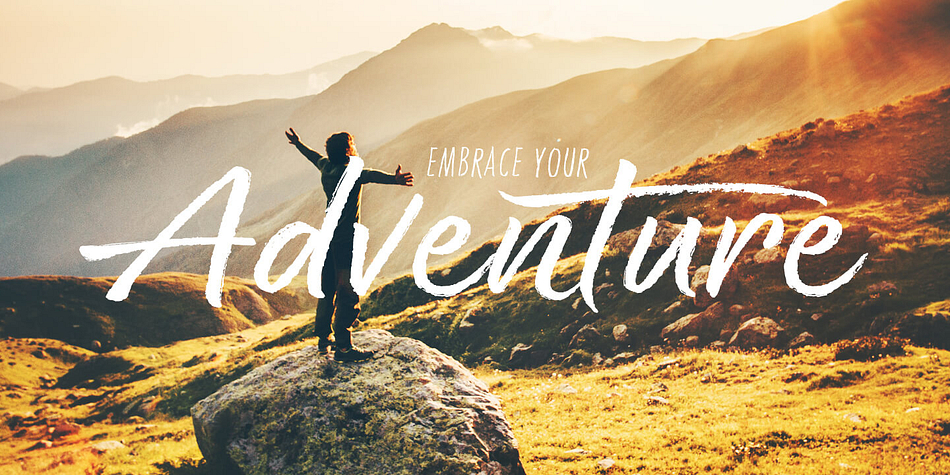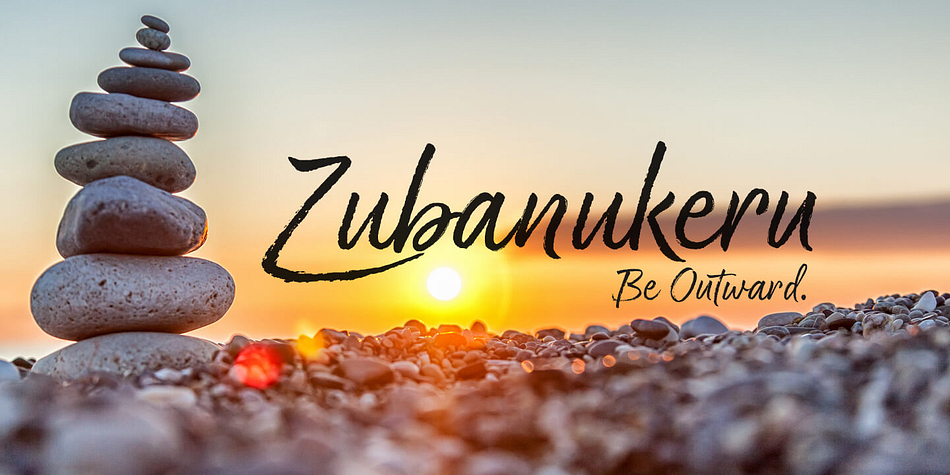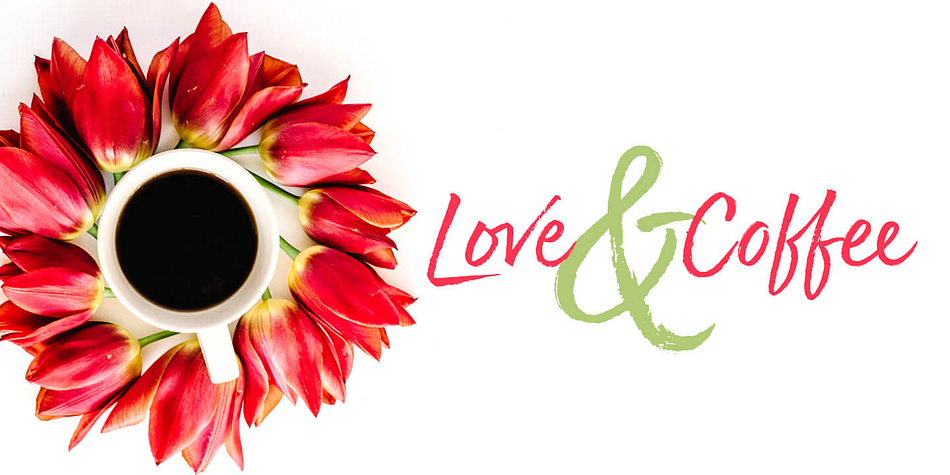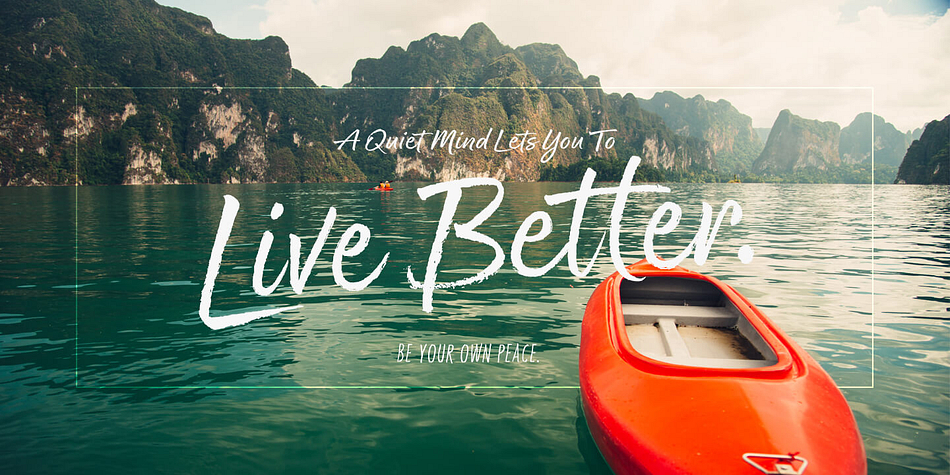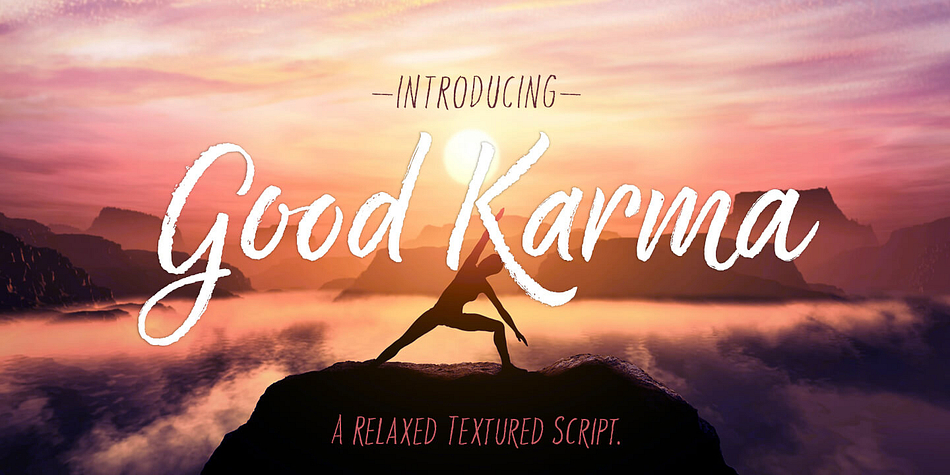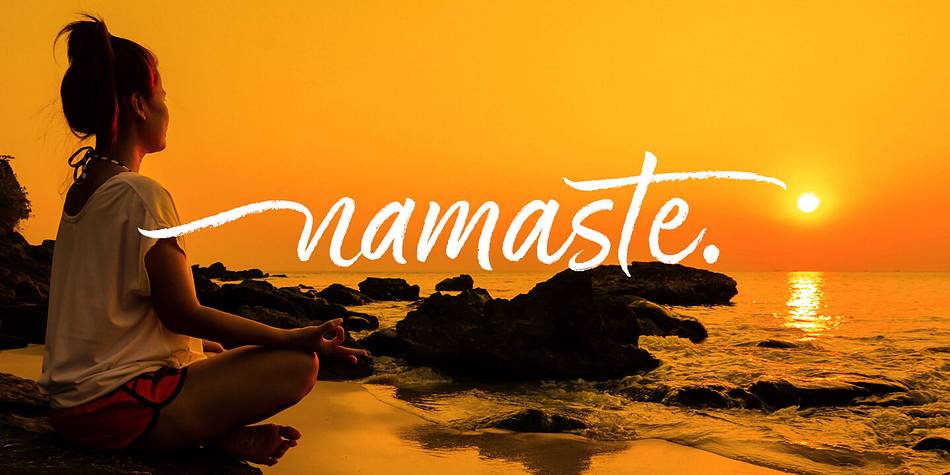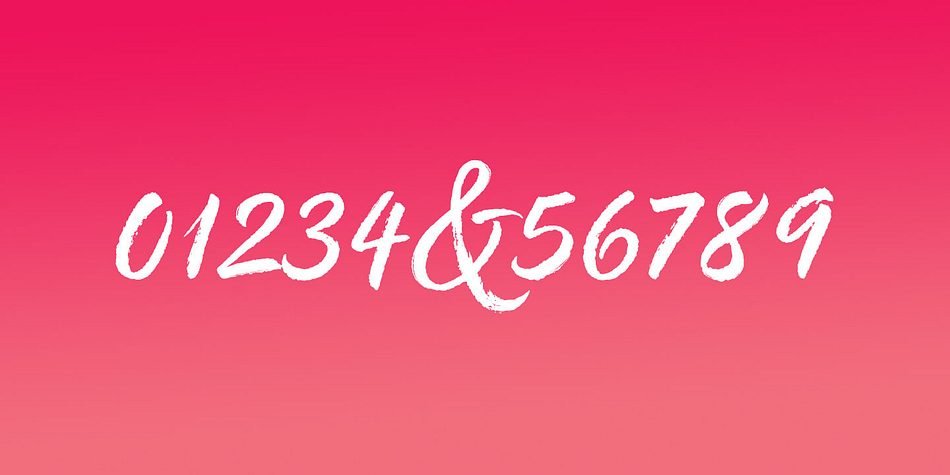
Designed by Neil Summerour, Good Karma is a multiple classification font family. This typeface has five styles and was published by Positype.
Good Karma (its namesake) will be extended to you as you use this new relaxed script family. Produced from hand and sumi brush of Neil Summerour, Good Karma is a natural brush textured font family. Good Karma is filled with a lot of heart, reliable and genuine movements, and a wide range of letter options to befit any project needing an honest hand-lettered look.
Each typeface comes with an additional set of stylistic alternates (upper AND lowercase) that harmonize wonderfully when you have the Opentype Ligature feature active. Additionally, special double-letter ligatures have been produced for specific combinations in need of more expressive flair, as well as a few swashes that work with the economical strokes originally produced from the sumi brush.
To further expand the usefulnesss of this peaceful script, a separate Caps/Small Caps font has been added that provides the simple contrast needed to bring the script fonts forward.
Rather than limit the personality of this script, various styles have been produced to complement the original Regular—Upright, Wide, Wide Upright, and the aforementioned Caps fonts are included in hopes of helping you find the perfect variation needed for your composition.
Good Karma is the first release of the Positype Relaxed Script Collection of typefaces—all focused on fluid, effortless script fonts for simple use.